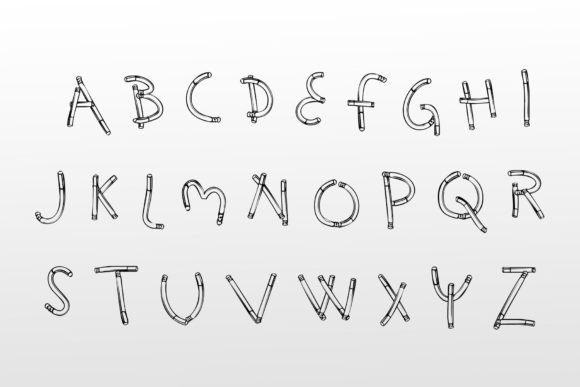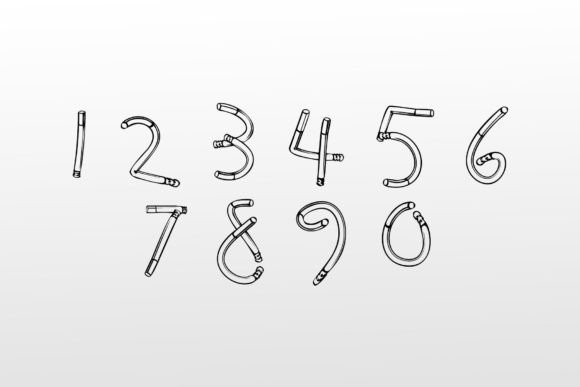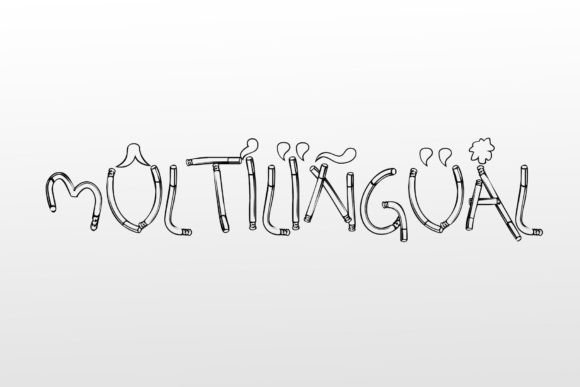
Introduction to Second-hand Smoke Font
Have you ever been stuck on a creative project, struggling to find the perfect font to bring your vision to life? That’s exactly where I was when I stumbled upon the enchanting Second-hand Smoke Font. This quirky display font is an absolute game-changer for designers, and I’m excited to share its story with you.
As a designer, you know how crucial it is to have a diverse range of fonts at your disposal. With Second-hand Smoke Font, you’ll be able to add a touch of whimsy and personality to your designs, making them truly stand out from the crowd. Whether you’re working on a free download project or a high-quality design resource, this font is sure to impress.
Key Features of Second-hand Smoke Font
- Unique, smoke-inspired design with a transparent background, ideal for adding a subtle effect to your work.
- Includes a wide range of characters, including uppercase and lowercase letters, numbers, and special characters.
- Designed with a high resolution of 300 DPI, making it perfect for use in print materials and high-quality digital projects.
- Perfect for adding a touch of mystery and creativity to your designs, from posters and flyers to digital art and graphics.
- Can be easily customized and manipulated using most font editing software, allowing for endless creative possibilities.
Honest Review: Second-hand Smoke Font
As a designer, I’m always on the lookout for high-quality design resources to elevate my creative projects. Recently, I stumbled upon the Second-hand Smoke Font, and I’m excited to share my honest review.
- ✨ Unique, hand-drawn style that adds a touch of whimsy to any design
- ✨ High-quality vectors that make it perfect for large-scale applications
- ✨ Transparent background, making it easy to composite with other design elements
- ⚠️ Limited character set, which may not be suitable for longer text-based projects
- ⚠️ Some users may find the font’s hand-drawn style too busy or distracting
Overall, I’m impressed with the Second-hand Smoke Font’s unique style and high-quality vectors. While it may not be suitable for every project, it’s a great addition to any designer’s toolkit. If you’re looking for a free, high-quality design resource to add some creativity to your next project, I’d definitely recommend giving it a try.
Customizing the Font
One of the benefits of the Second-hand Smoke Font is its transparent background, which allows you to easily place it over images or other design elements. Experiment with different font sizes and styles to get the most out of this versatile font.
To get the most out of the Second-hand Smoke Font, try using it in conjunction with other design elements, such as images or graphics. You can also experiment with different colors and backgrounds to create a unique look. Remember to save your work regularly to avoid losing your progress.
The Second-hand Smoke Font is a great choice for a variety of creative projects, including blog posts, social media graphics, and marketing materials. Its unique style and transparent background make it perfect for adding a touch of elegance to your designs.